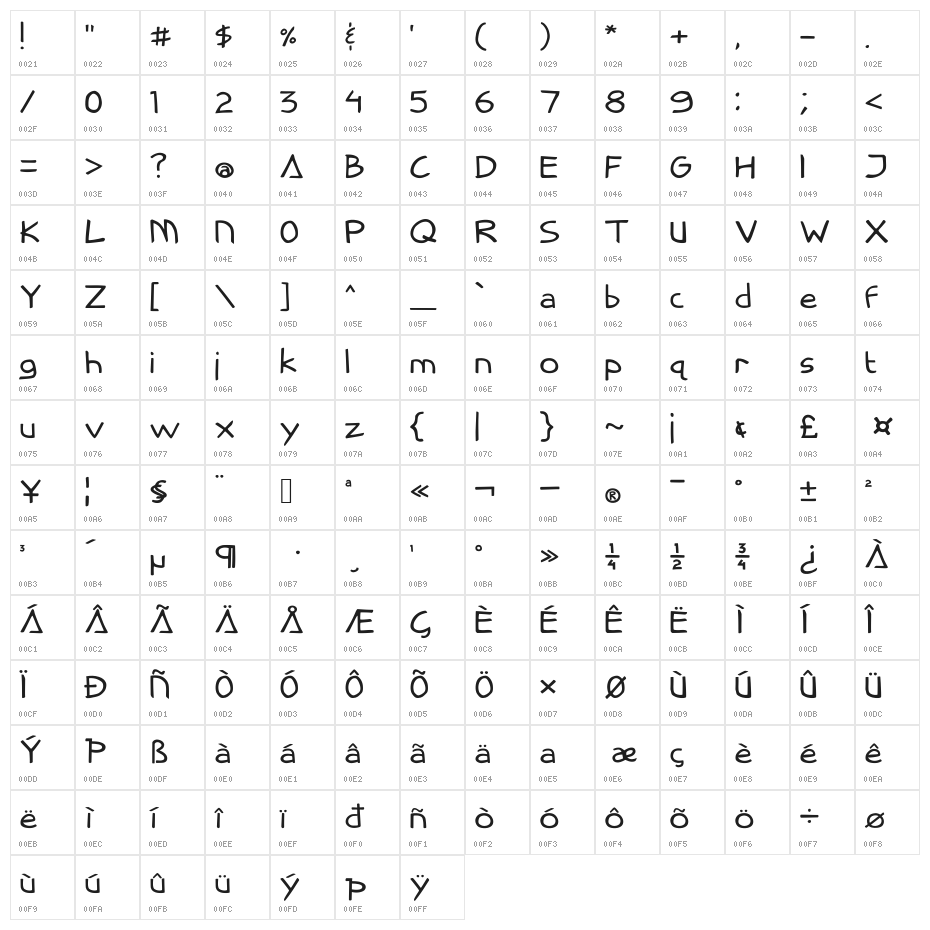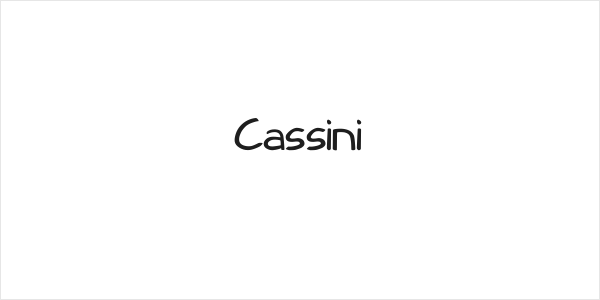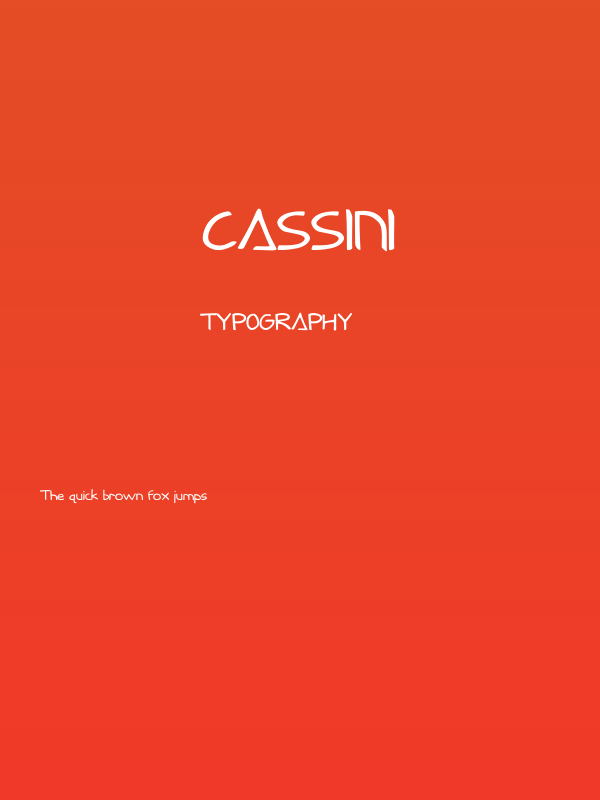
Cassini Font
| Gesamtstil | Casual |
| Anwendungsfall | Headlines, Logos, Informal Text |
| Vorgeschlagene Projekte | Ideal for children's books, casual invitations, playful branding, and social media graphics. |